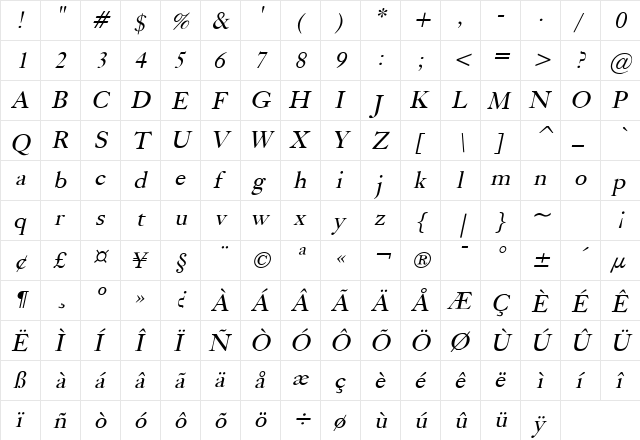
Bliss Italic
Design Context for Bliss Typeface
Bliss takes a measured approach to typography — its balanced proportions and neutral character make it a reliable workhorse for both digital and print work. The slanted form adds forward momentum and visual energy.
Pro Tip: Use Bliss for emphasis, pull quotes, and subheadings where its slanted energy can add rhythm to the layout.